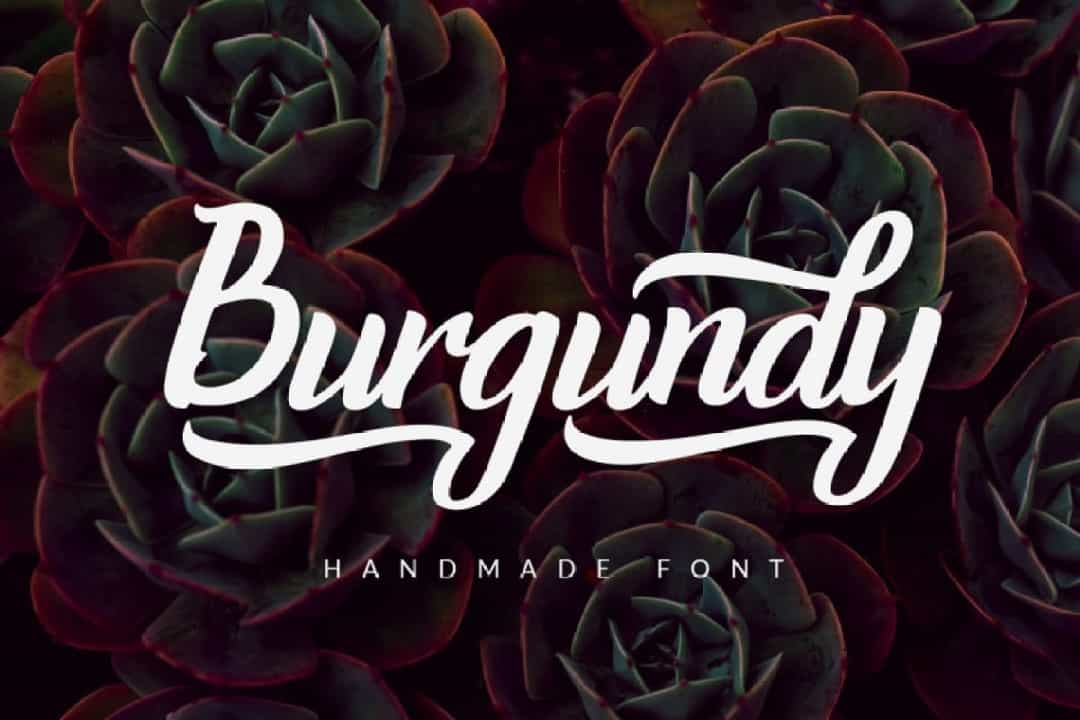
Burgundy Font is a pretty and contemporary straight handwritten font. Because of the handwritten style it has, this font is appropriate to use in all your project designs for logos, signatures, labels, packaging design and also for headlines for the blog. It is guaranteed that, if you use Ding Dong, your text will be easily noticed.